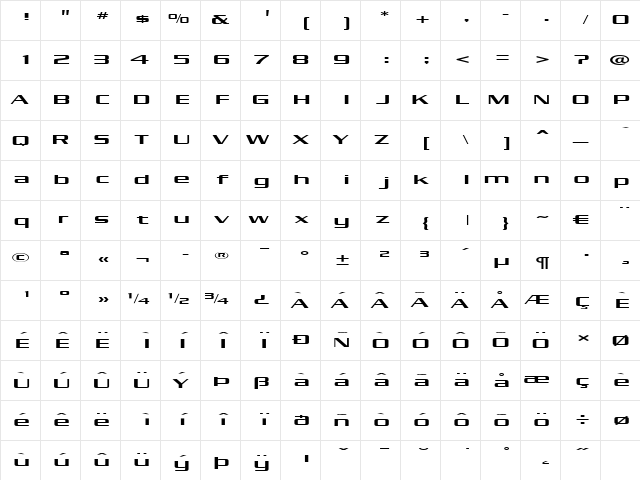
Kubra_Extended Font Preview
Kubra_Extended Kubra_Extended
Kubra_Extended Font Details
| Designer | Ersenak Xtreme |
Design Context for Kubra_Extended Typeface
Kubra_Extended takes a measured approach to typography — its balanced proportions and neutral character make it a reliable workhorse for both digital and print work.